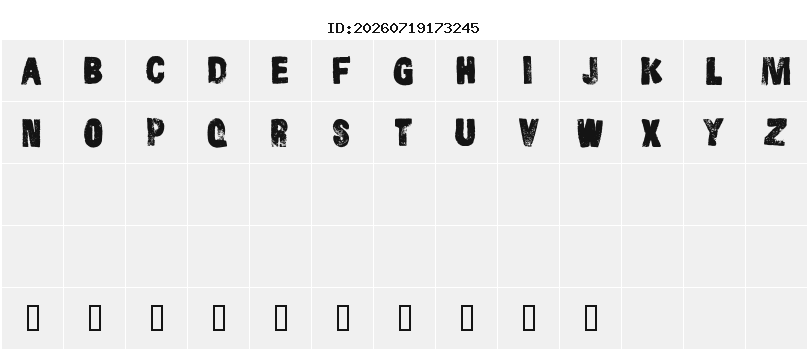
CF Snowboard Project PERSONAL Preview
• Font Name: CF Snowboard Project PERSONAL
• Full Font Name: CF Snowboard Project PERSONAL Regular
• Designer: Steve Cloutier
• Manufacturer: CloutierFontes
• Description: CF Snowboard Project PERSONAL Regular is a font by CloutierFontes, designed by Steve Cloutier in 2016.
About CF Snowboard Project PERSONAL.ttf
CF Snowboard Project PERSONAL.ttf is a modern, elegant sans-serif font designed for ultimate readability and visual harmony. Perfect for branding, headlines, web design, and print materials.